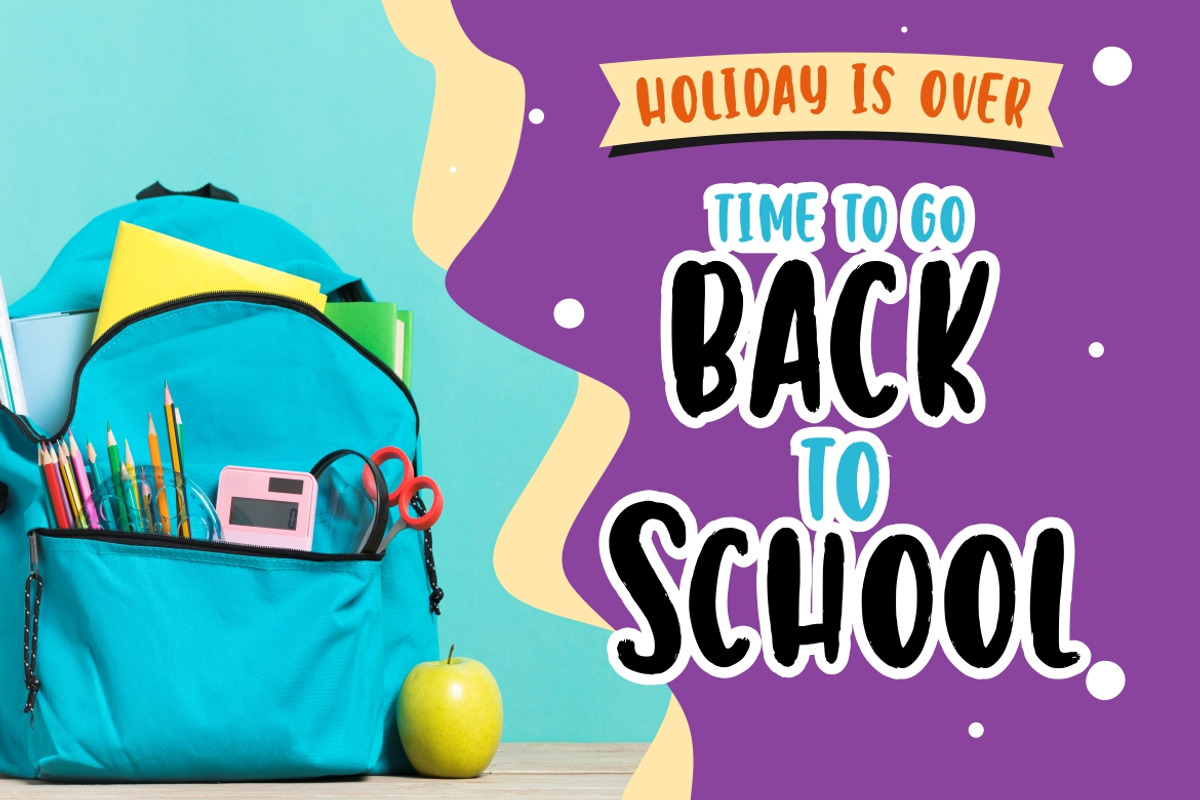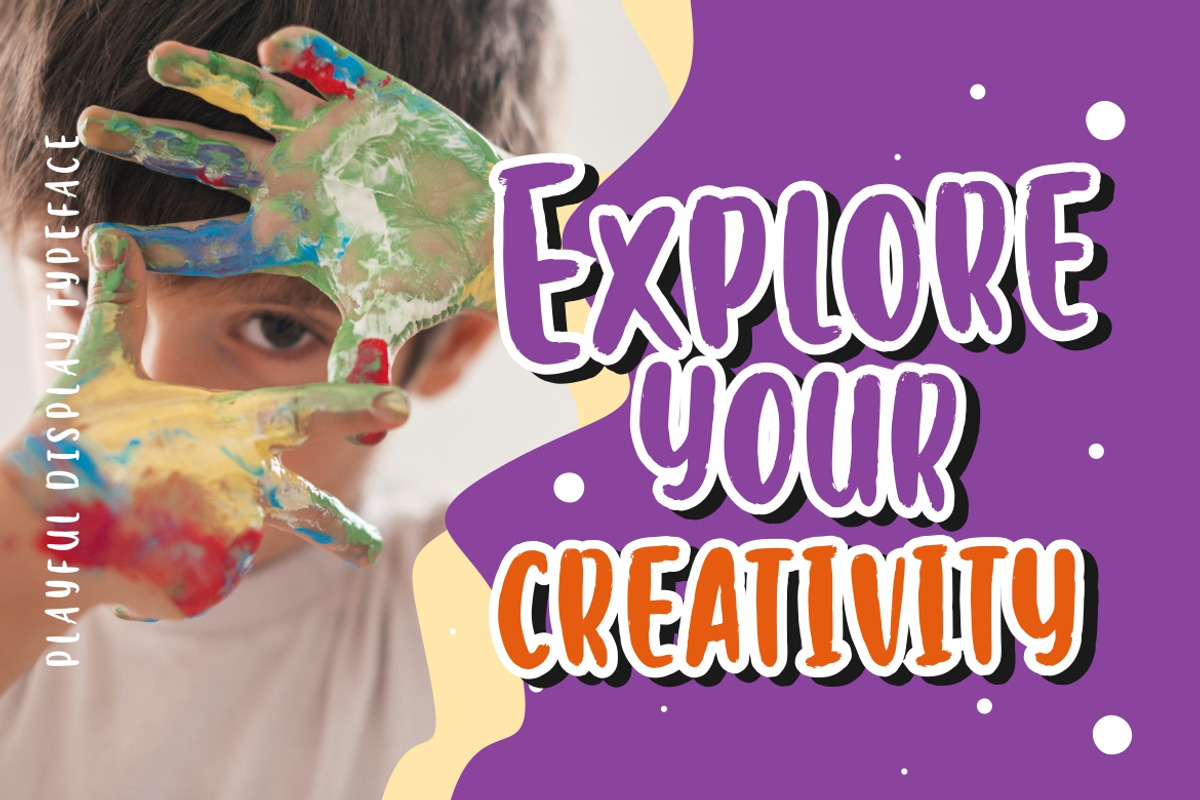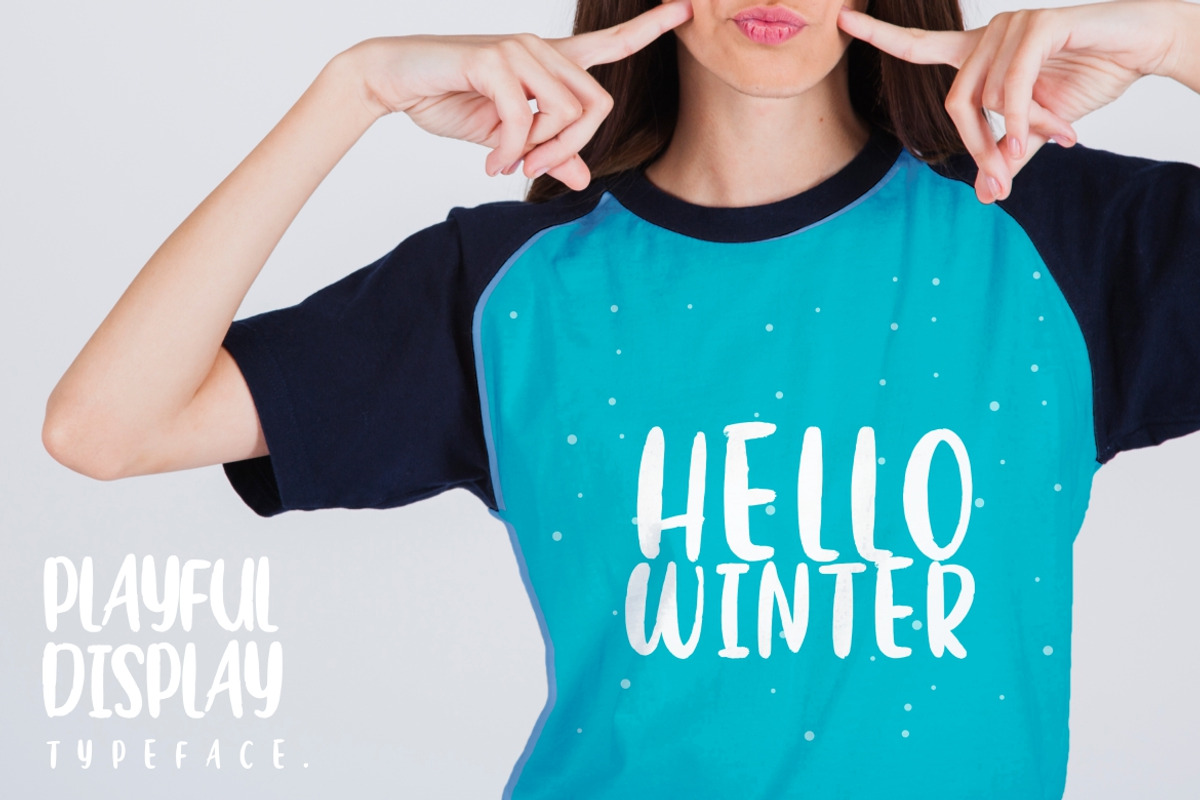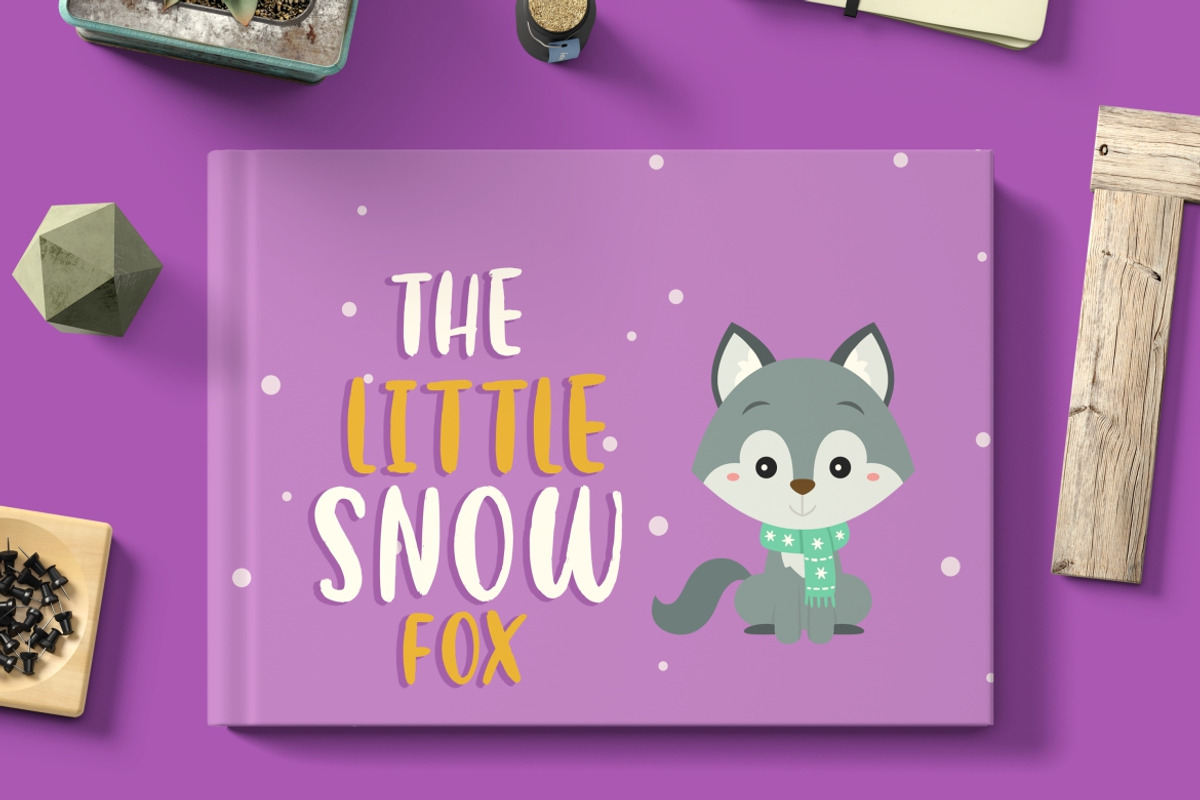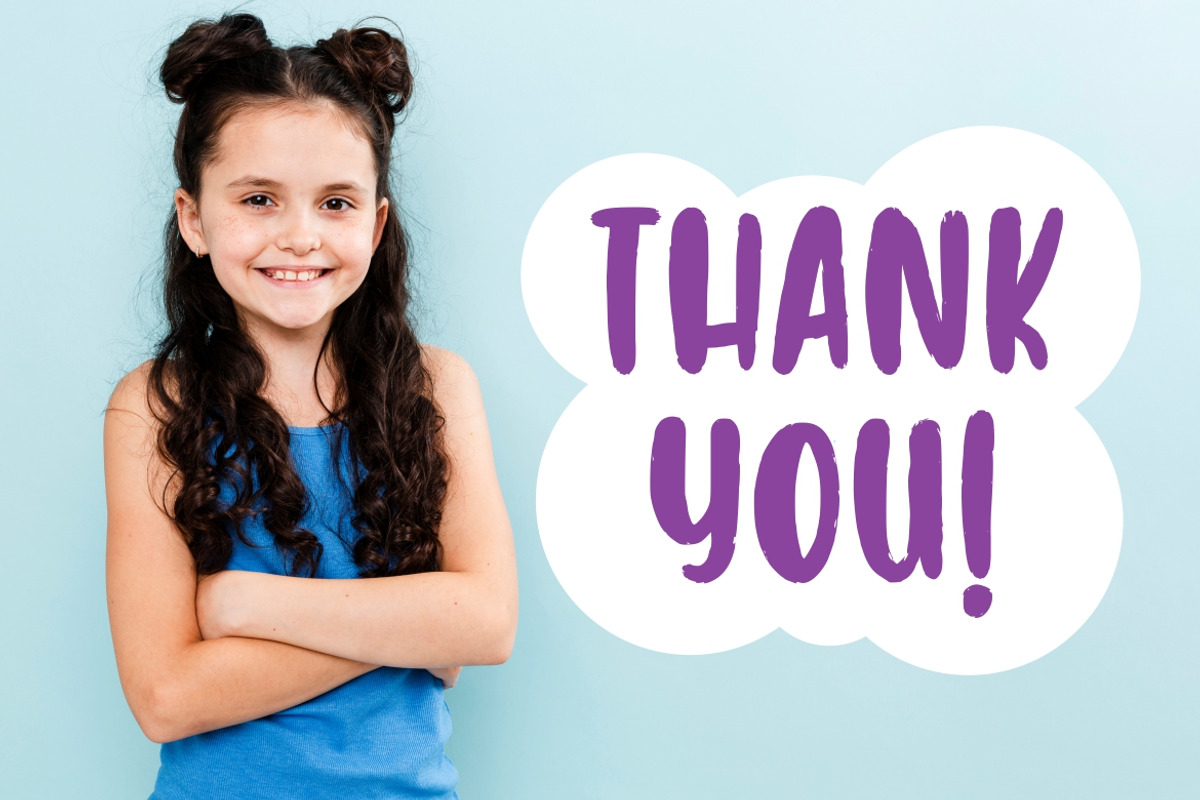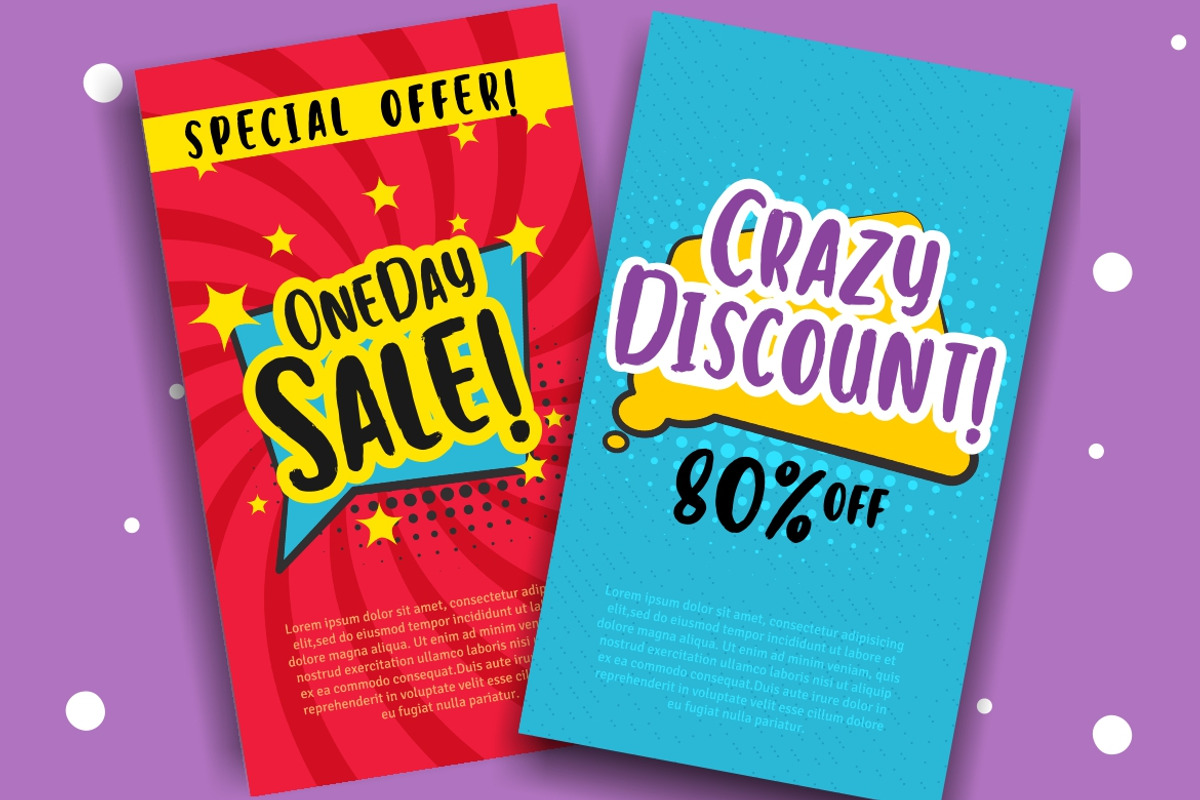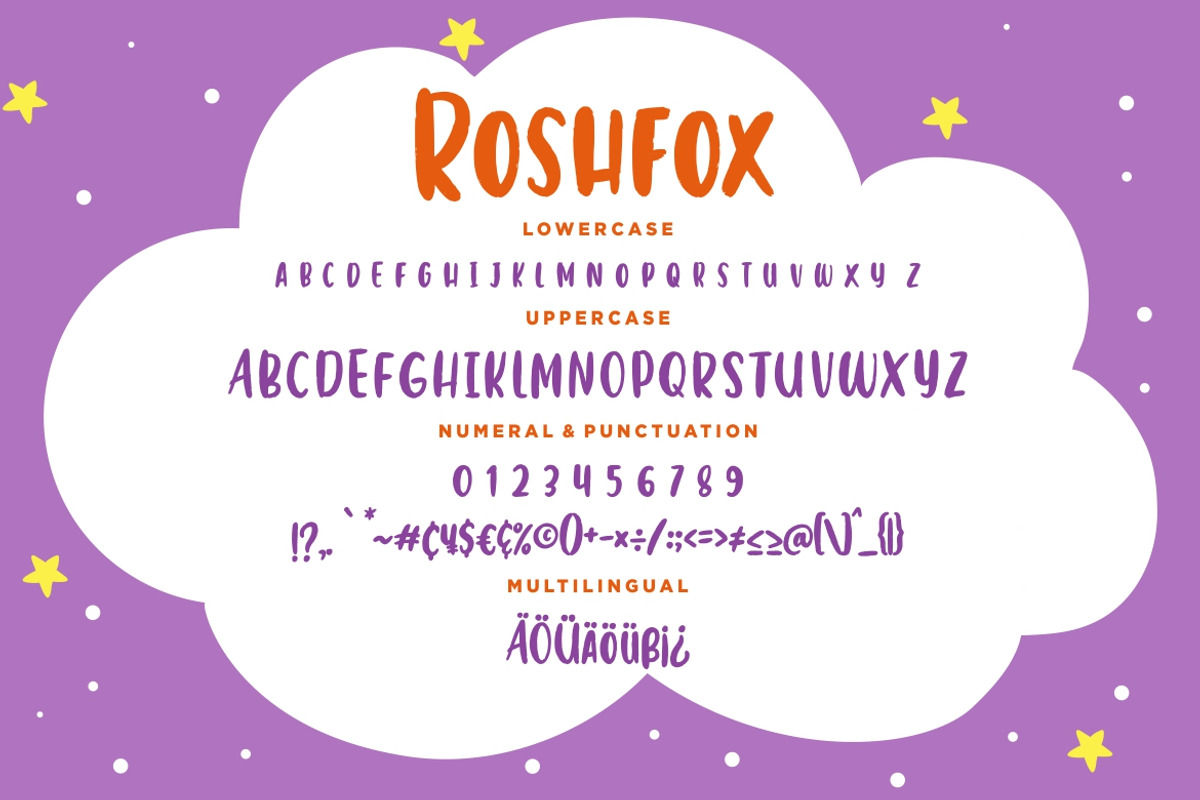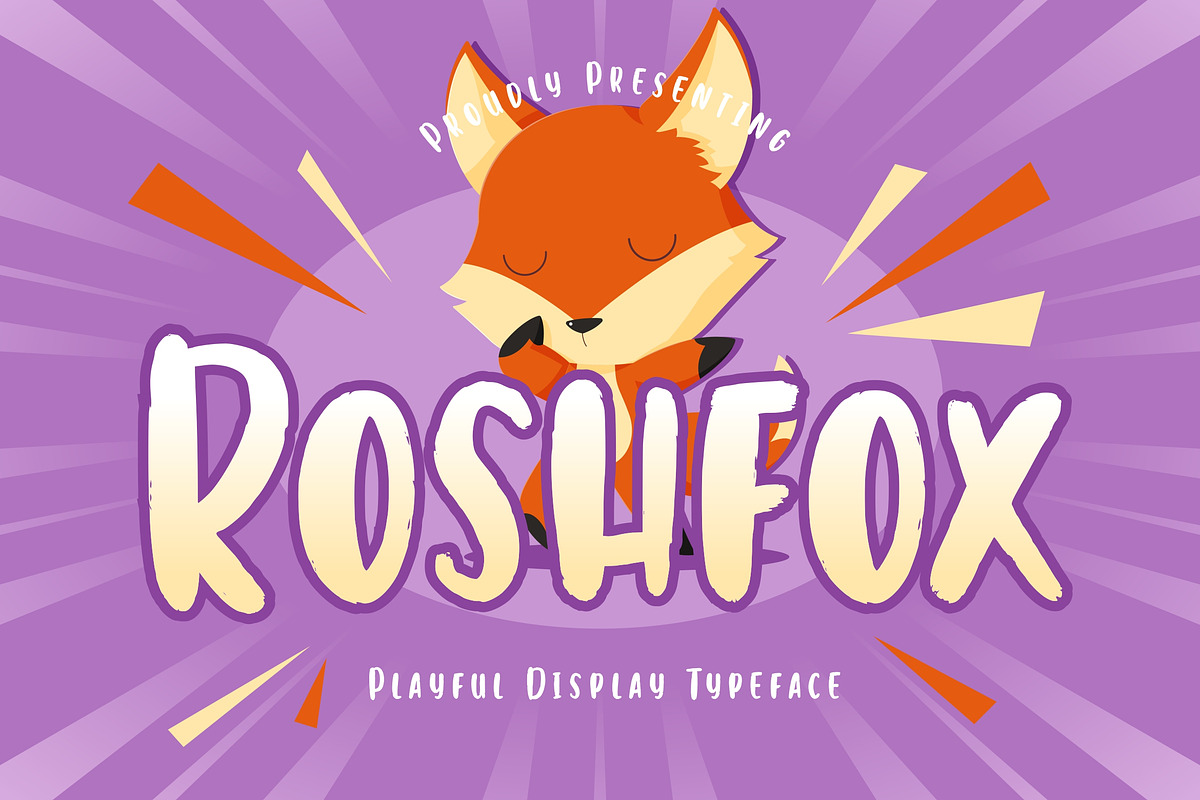
Roshfox Display Advertisement Font
Roshfox is playful display font which suitable to use for children related occasion.. This font is perfect for branding projects, logo, wedding designs, social media posts, advertisements, product packaging, product designs, label, photography, watermark, invitation, stationery and any projects that need handdrawn taste.
Fonts include multilingual support for; ä ö ü Ä Ö Ü ß ¿ ¡
Roshfox Display Advertisement Font by Creatype Studio fits naturally into Branding, posters, packaging, typography.